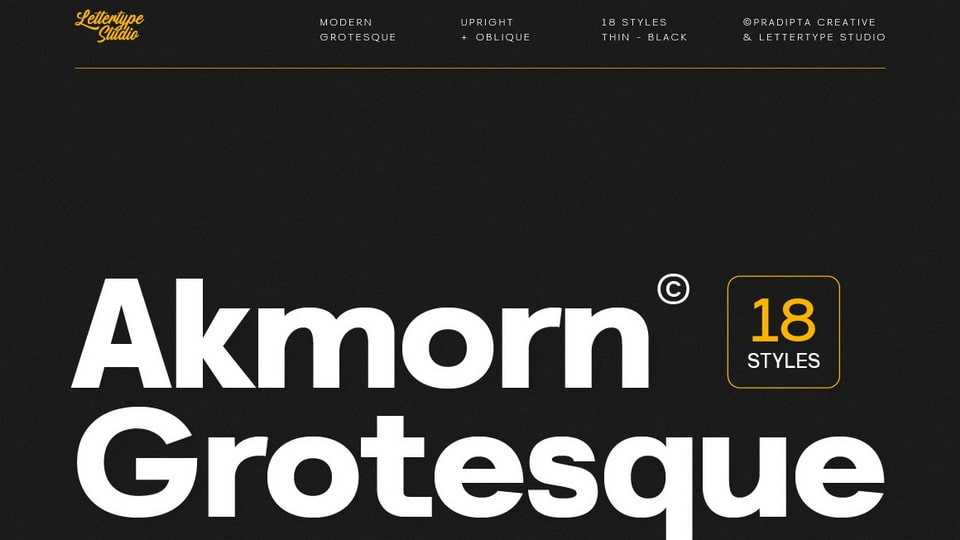
Download Akmorn font, a modern grotesque sans serif typeface designed for versatility and precision built with clean geometry and balanced proportions.
Designer: Lettertype Studio